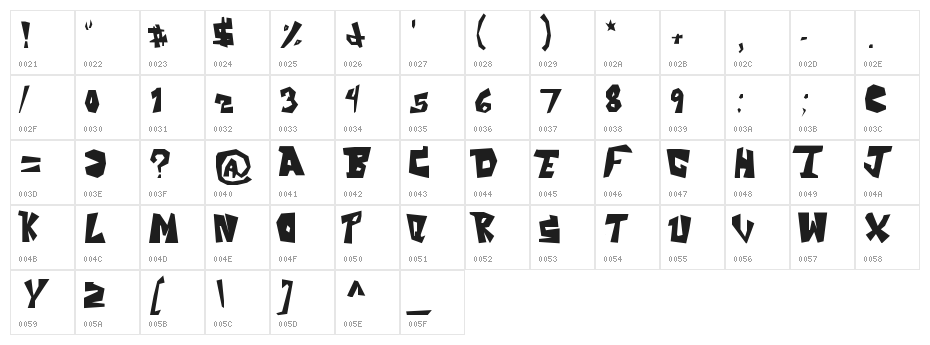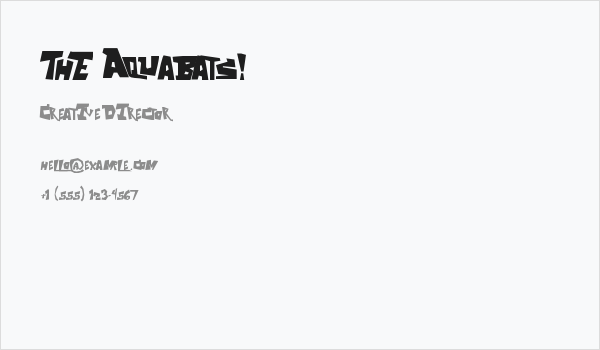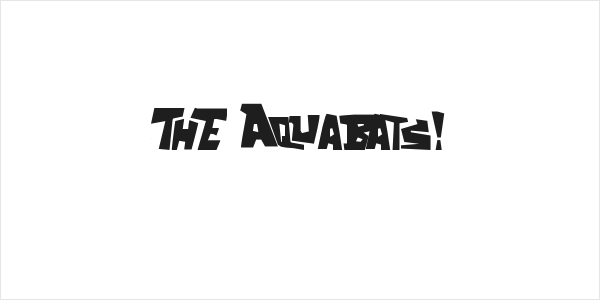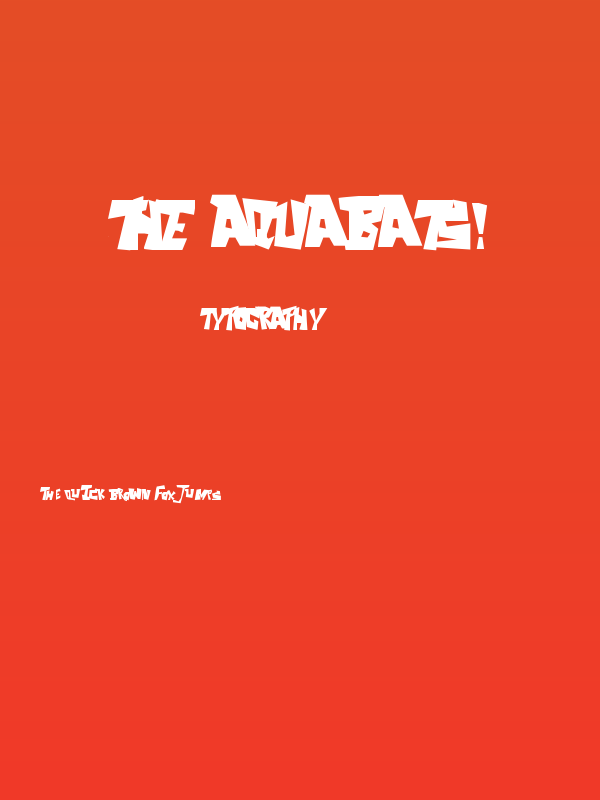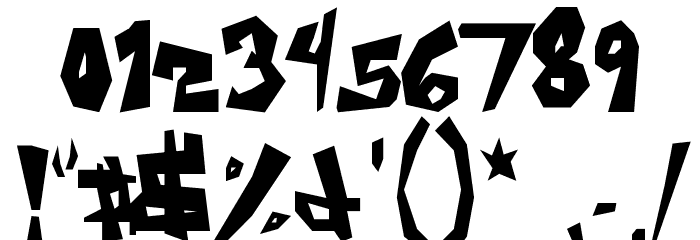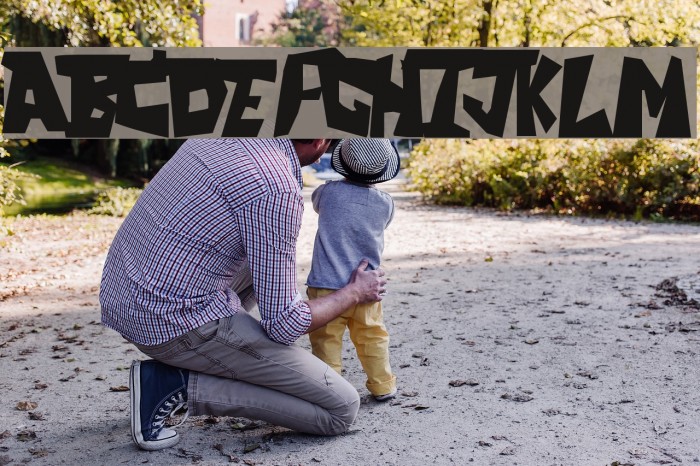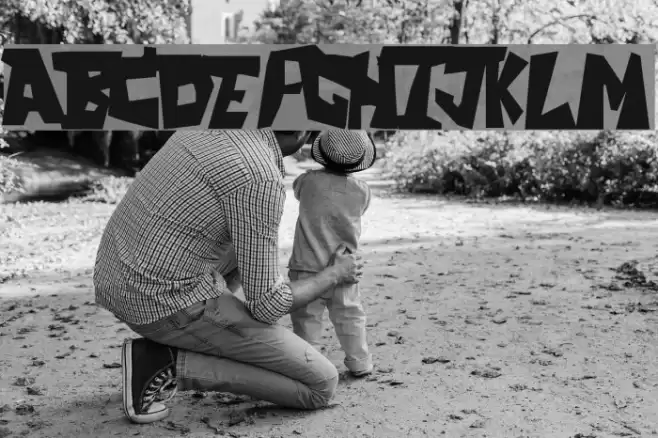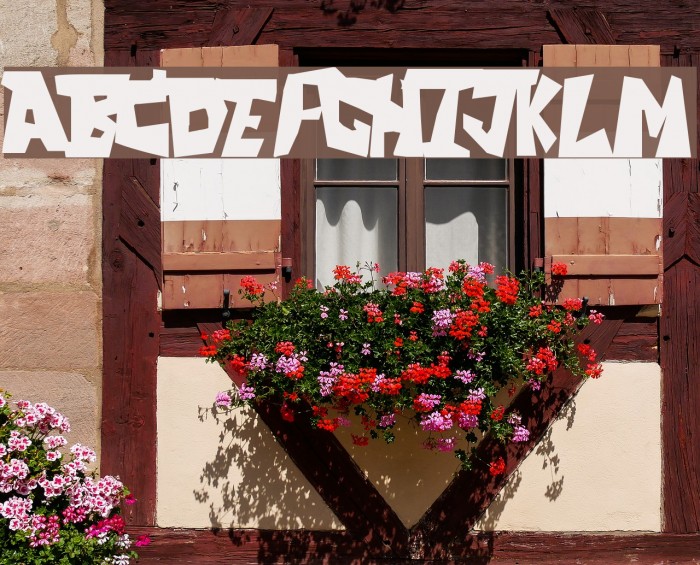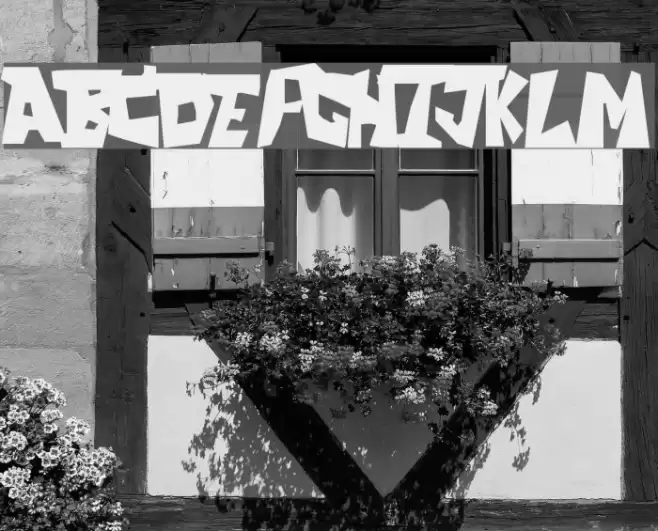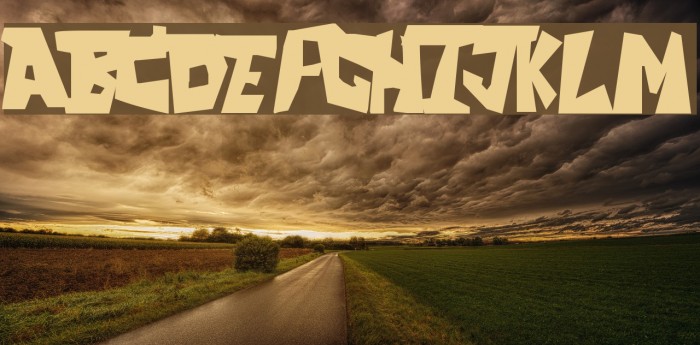
ThE Aquabats! Font
ThE Aquabats! Description
This font features a bold, angular design with a distinctly geometric and edgy appearance. The characters are crafted with sharp, irregular edges and a blocky style that gives it a dynamic and energetic feel. Each letter and number is uniquely shaped, creating a sense of movement and excitement. The font's unconventional structure makes it stand out, with a playful yet aggressive aesthetic. It is highly stylized, making it suitable for creative and unconventional projects. The special characters maintain the same angular and bold characteristics, ensuring consistency throughout the font.
| Proposed Projects | Ideal for music album covers, posters, video game graphics, and branding for edgy or alternative brands. |